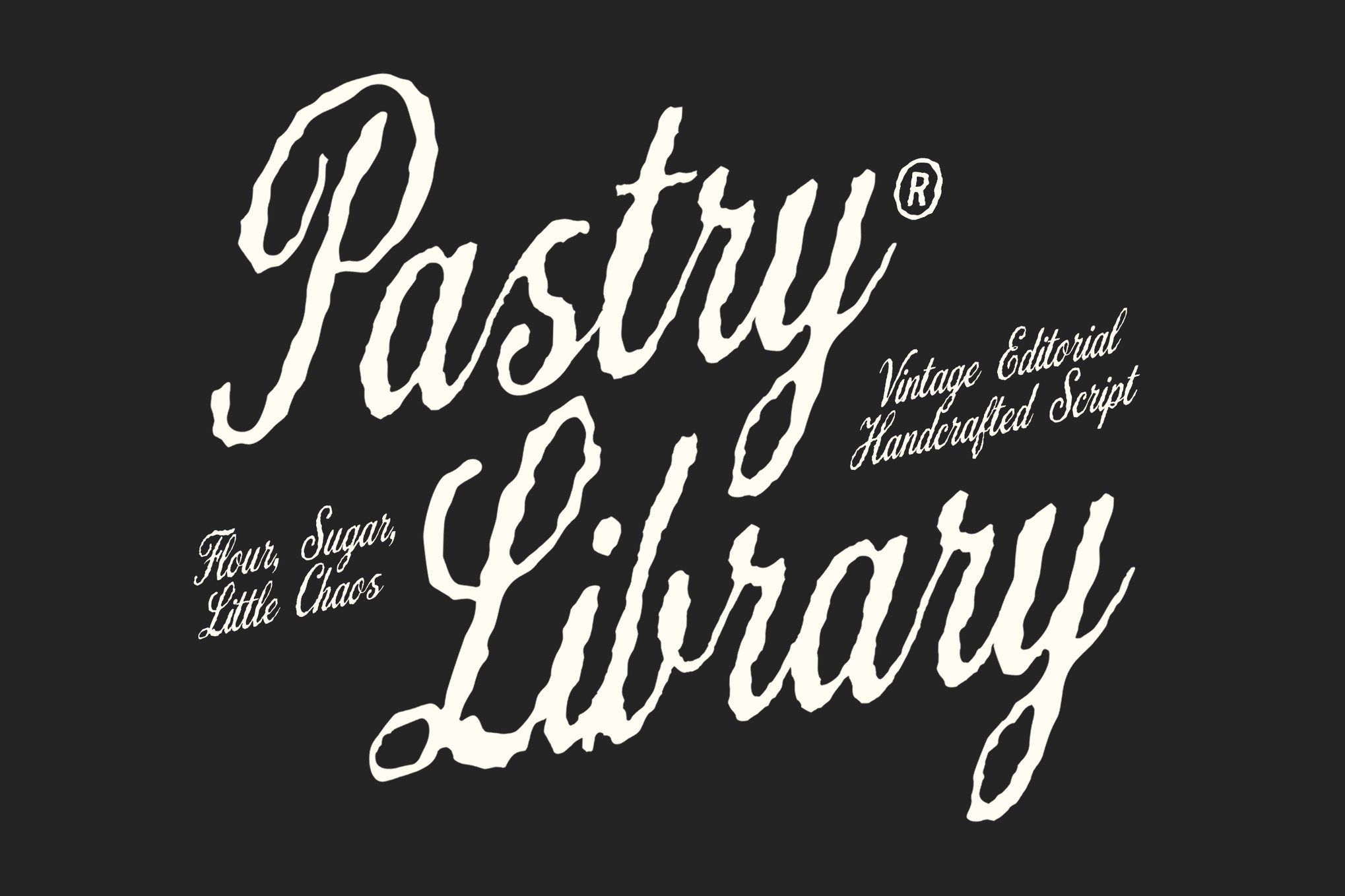
Pastry Library – Vintage Script Font
Pastry Library – Vintage Script Font is a distinctive and expressive font crafted to bring personality, structure, and creative energy into your projects. A warm, hand-drawn script inspired by the cozy atmosphere of old pastry shops and neighborhood bakeries. The letters feel natural and slightly imperfect, like something written quickly on a chalkboard menu while the smell of fresh bread fills the room. It carries a soft vintage mood while still feeling playful and alive.